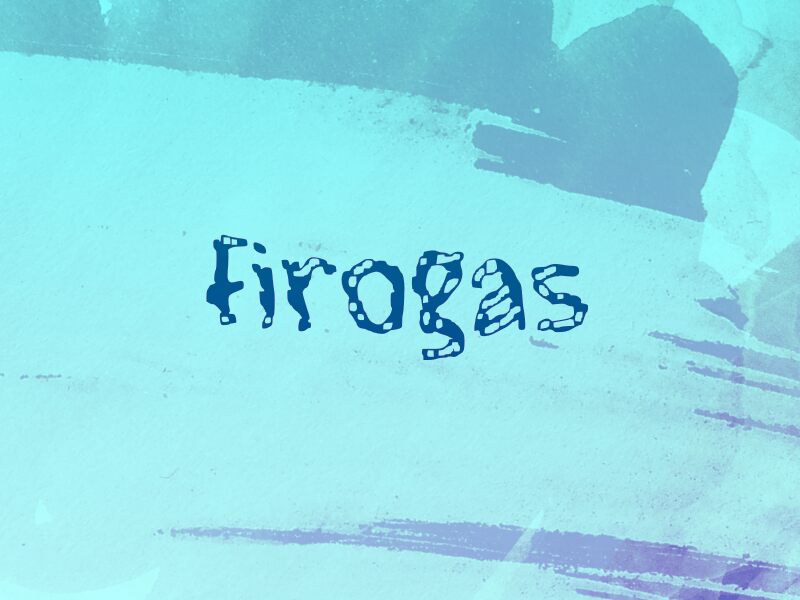
Firogas
Firogas, a captivating display font designed by wep, commands attention with its bold, distinctive letterforms. Each character is a unique work of art, featuring organic, flowing shapes that seem to dance across the canvas. The font's irregular contours and asymmetric elements lend it a sense of dynamism and energy, making it an ideal choice for attention-grabbing headlines, event posters, and branding applications.
Firogas' expansive, expressive nature allows it to effortlessly adapt to a wide range of design contexts, from modern, minimalist layouts to vibrant, eclectic compositions. Its versatility makes it a valuable tool for designers seeking to create visually striking, memorable compositions that leave a lasting impression on their audience.